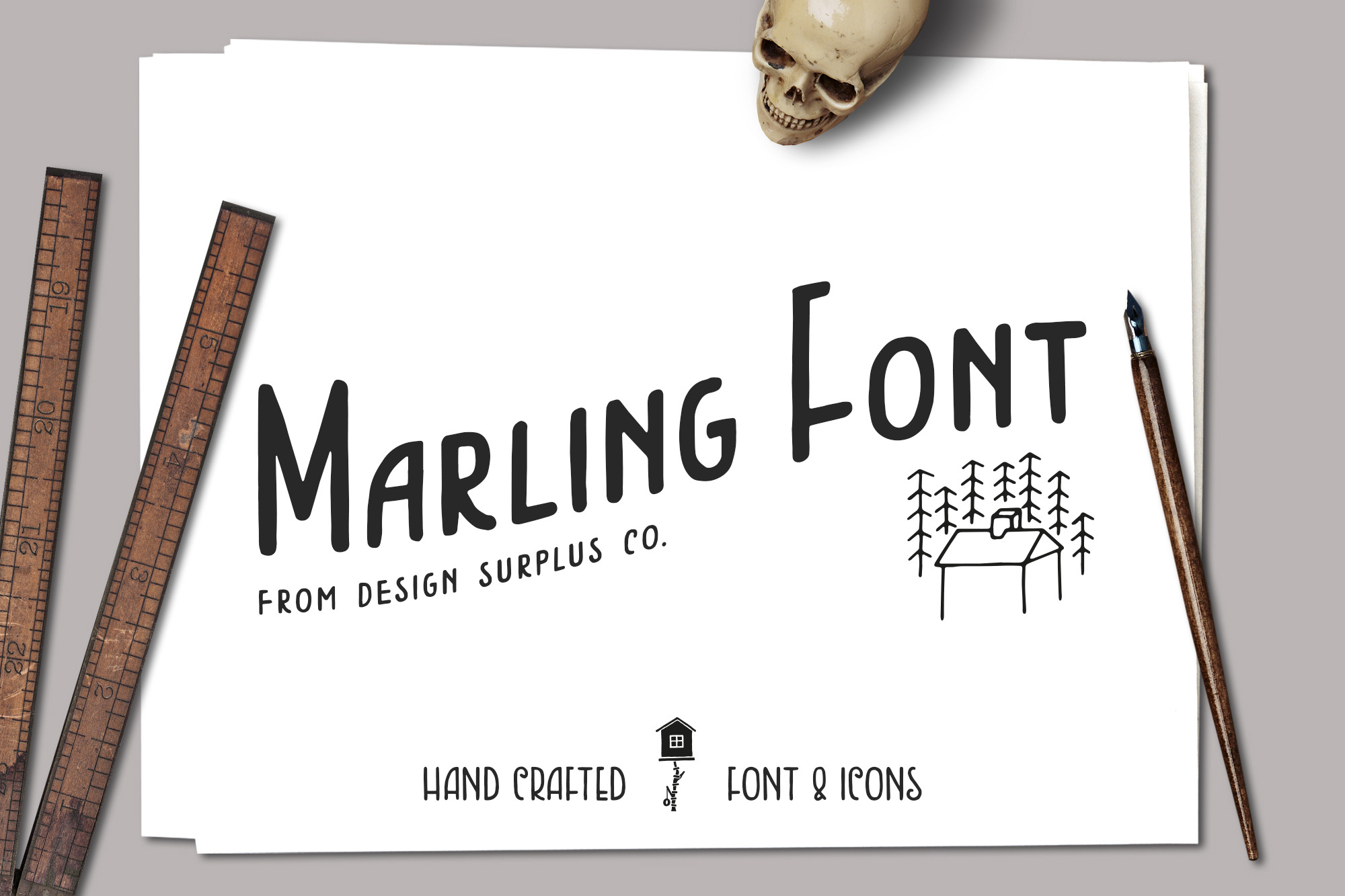
Marling Font
Introducing Marling, the newest font to the Design Surplus foundry. Marling holds it's own and also sits well with script fonts to create up to the minute branding and artwork. With it's tall uppercase and stumpy lowercase, Marling gives you authentic hand drawn imperfections with a clean and minimalist aesthetic. We've also chucked in 60 icons to speed up that branding process.
Looks awesome on just about anything! Take a look at the product images above to see how Marling can be used in logo designs, clothing, signage and more!